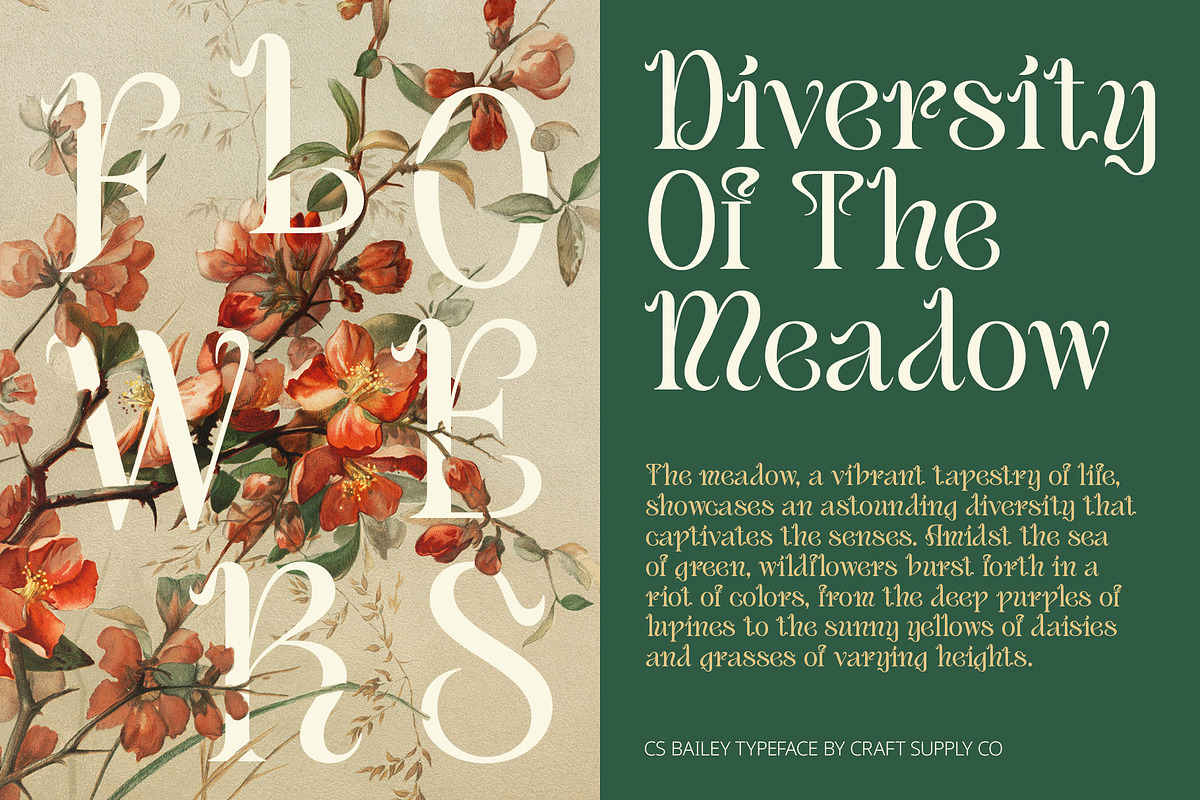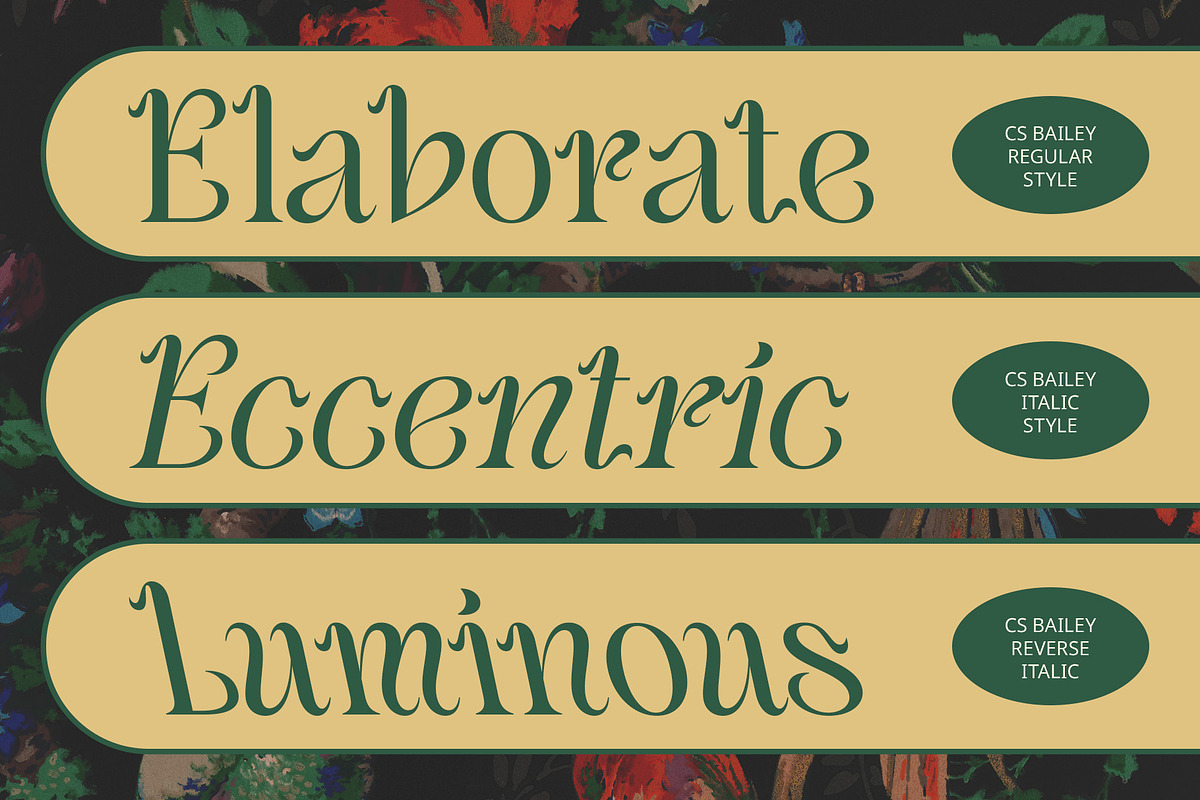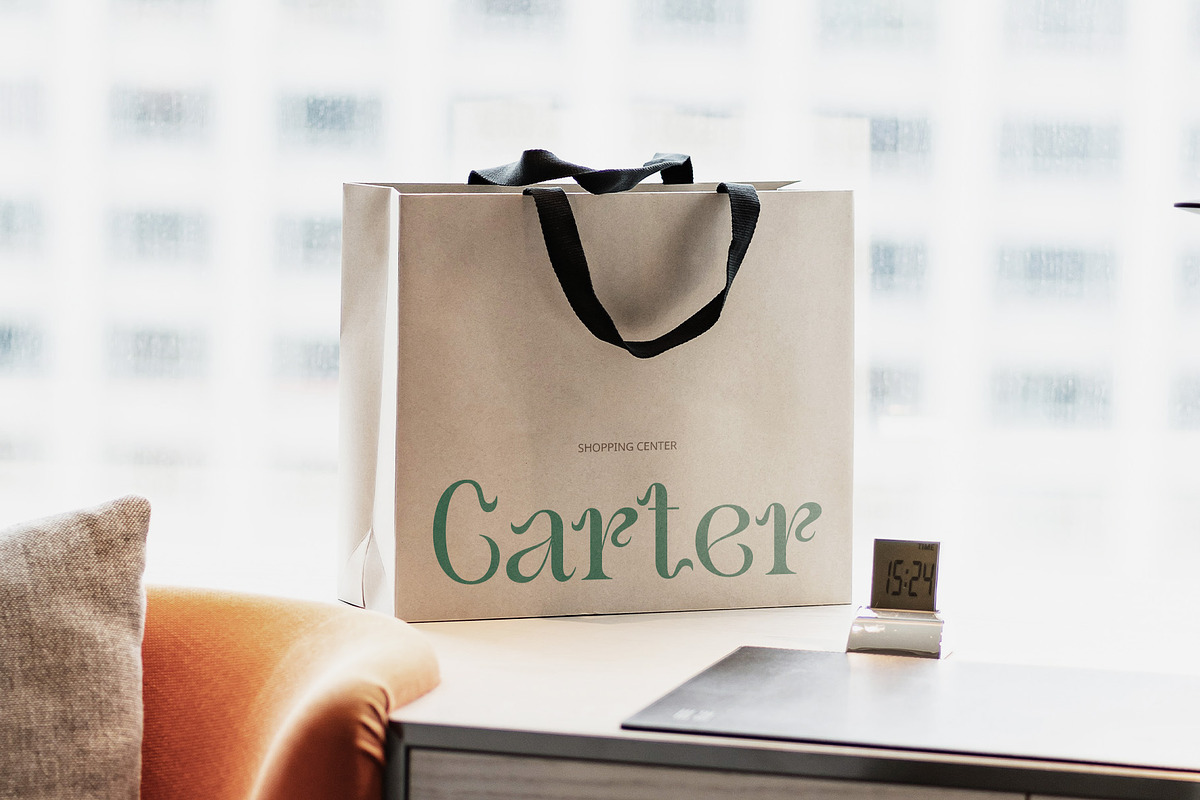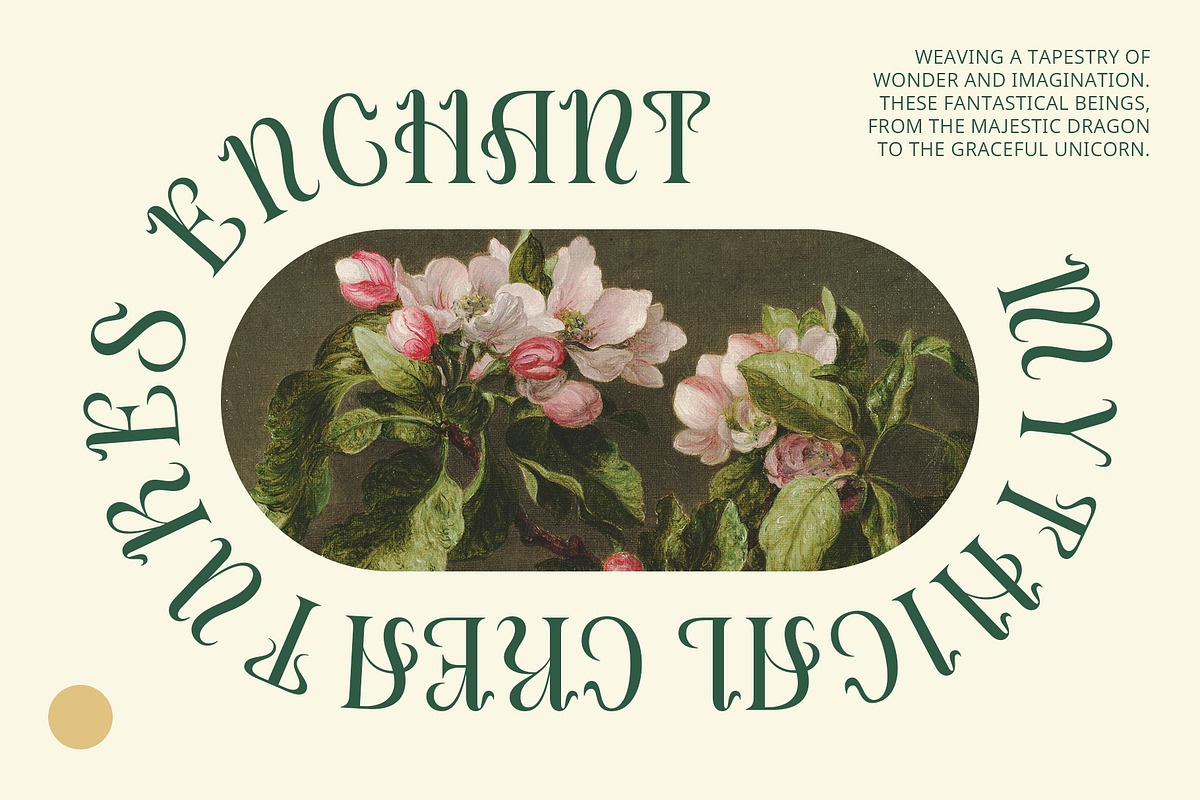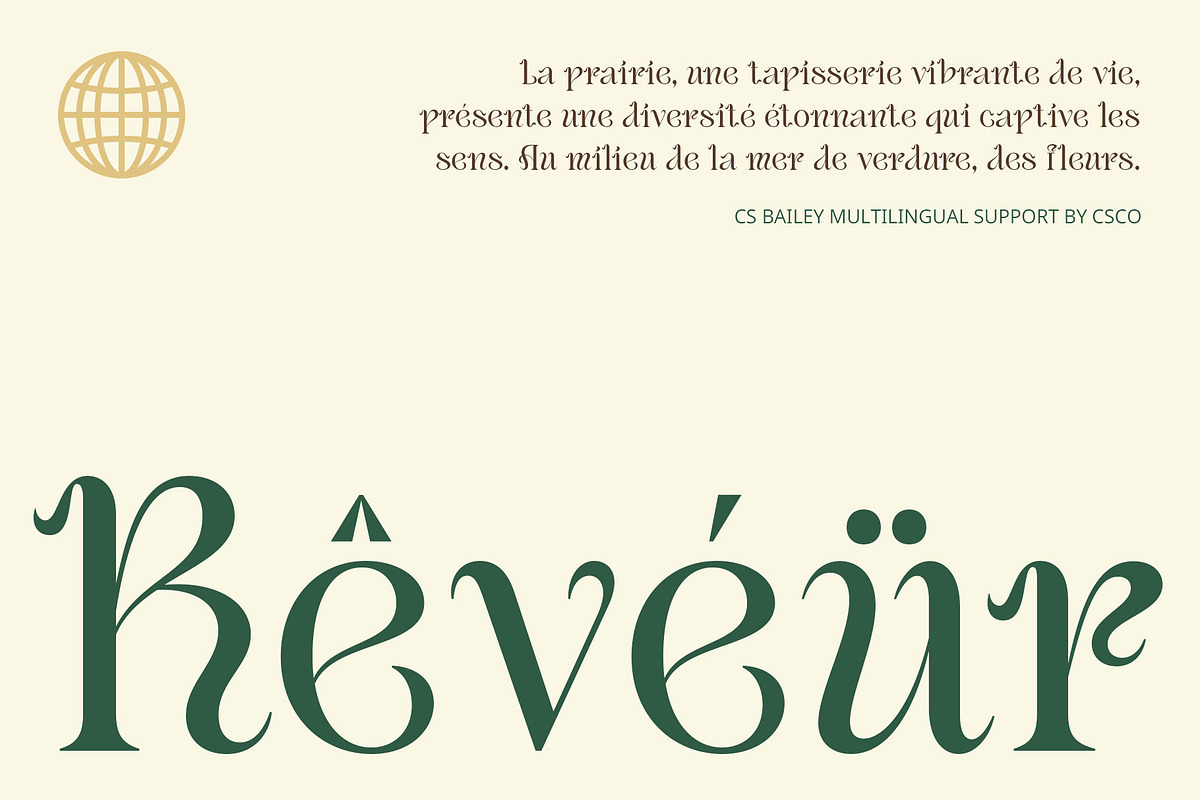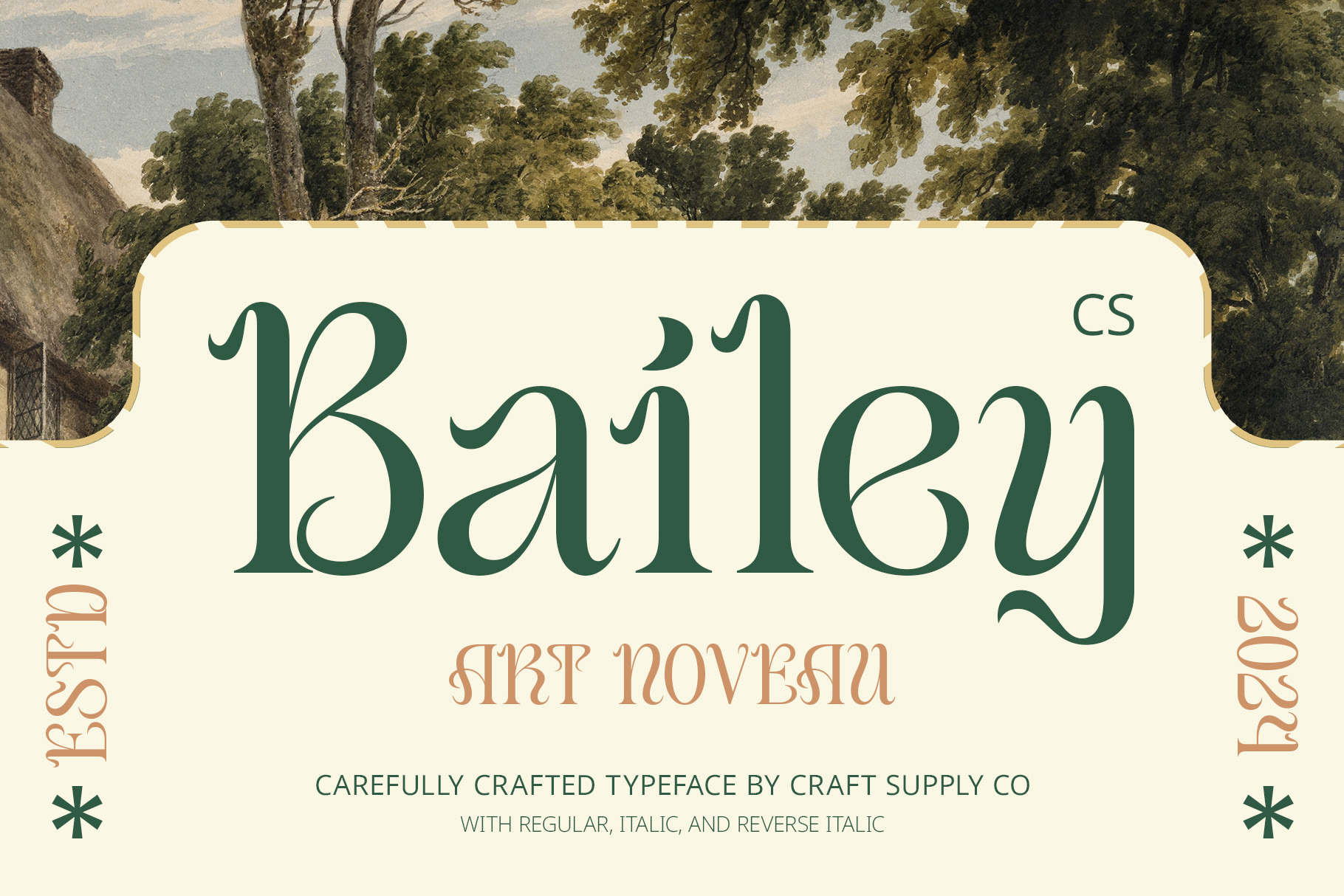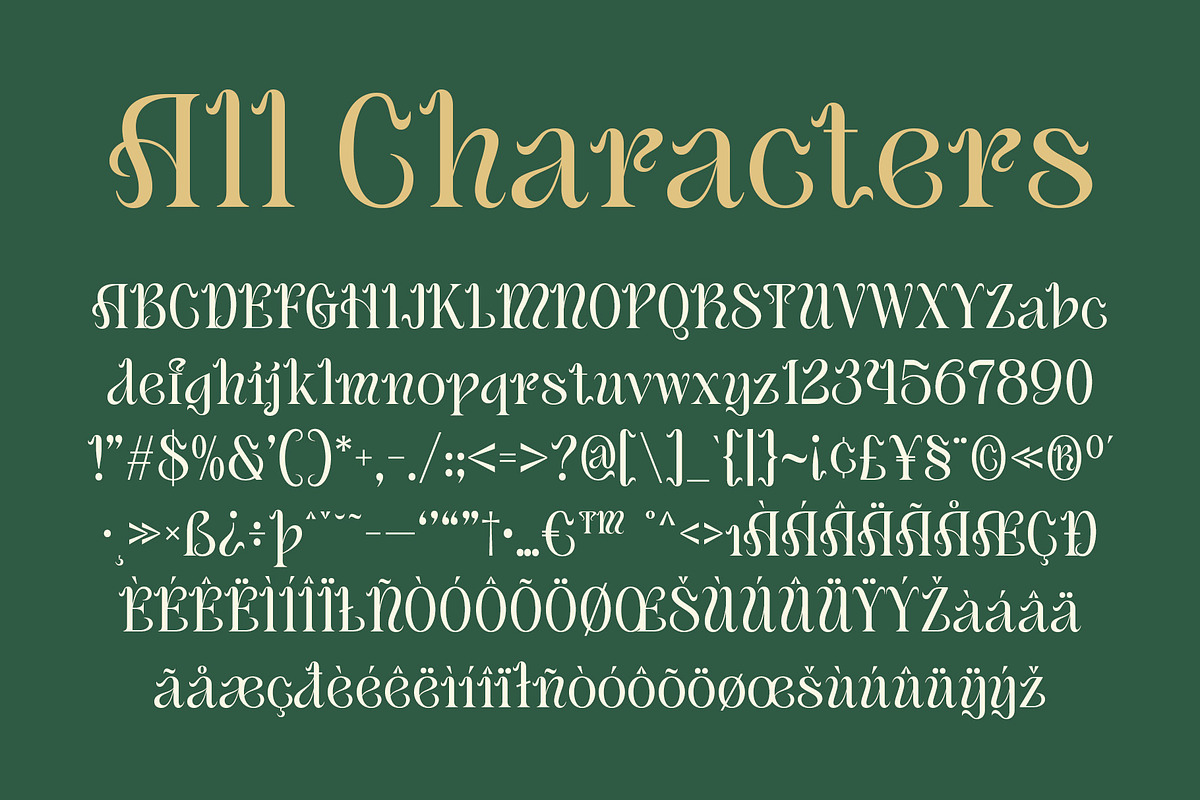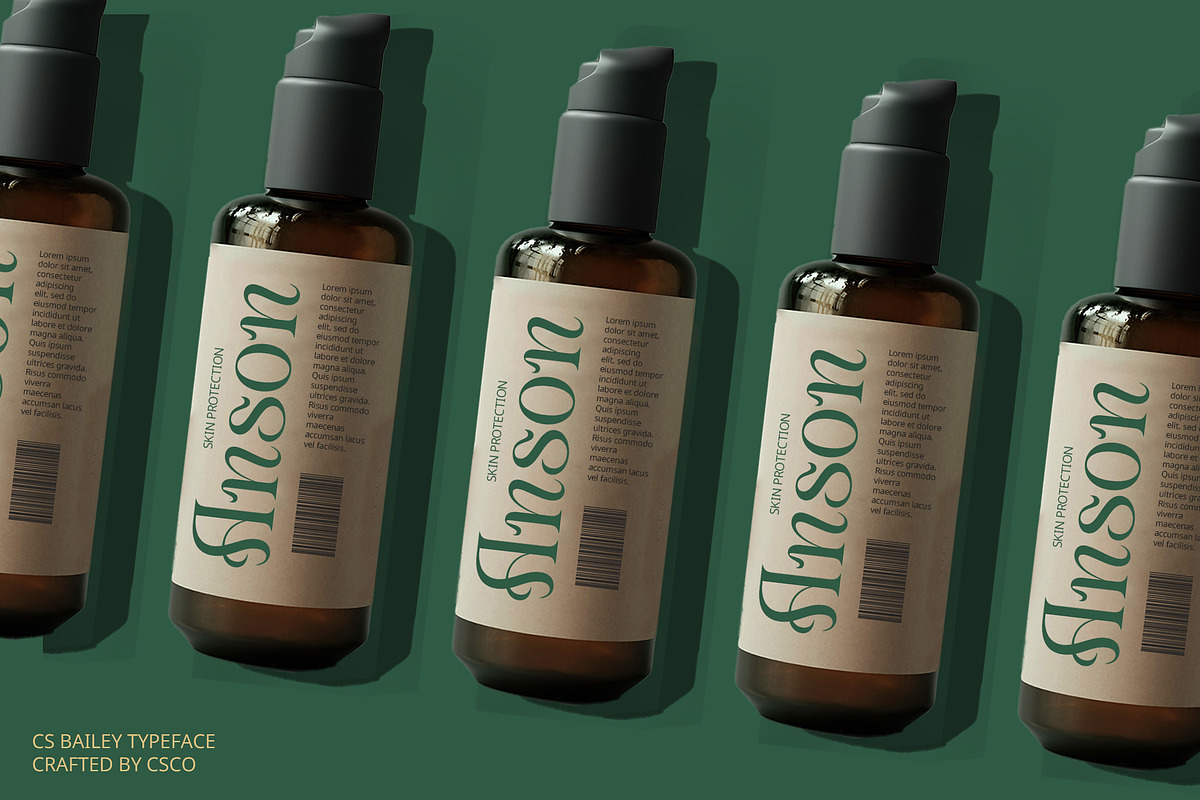
CS Bailey – Art Nouveau Font
CS Bailey – Art Nouveau Font: Timeless Elegance with Artistic Flair
Flowing Ornamental Forms CS Bailey – Art Nouveau Font is a display serif typeface that radiates beauty, elegance, and sophistication. Its flowing, ornamental forms and intricate details capture the essence of the Art Nouveau style, infusing designs with a timeless, graceful aesthetic.
Refined and Artistic Details The font’s refined and artistic flair is ideal for high-end branding, luxury editorial layouts, and upscale invitations. Its elaborate details enhance any project with a touch of artistic sophistication, making it perfect for conveying a refined and elegant visual message.
Perfect for Upscale and Luxury Designs CS Bailey excels in applications where a luxurious and elegant touch is desired. Whether used for branding high-end products, creating stunning editorial spreads, or designing sophisticated invitations, this font adds a unique and timeless charm.
Enhance Your Designs with Graceful Aesthetics Ideal for projects seeking to make a lasting impression, CS Bailey provides an exquisite balance of beauty and sophistication. Its Art Nouveau-inspired design ensures that your projects stand out with a classic and graceful touch, perfect for upscale and artistic applications.
- CS Bailey Regular
- CS Bailey Italic
- CS Bailey Reverse Italic